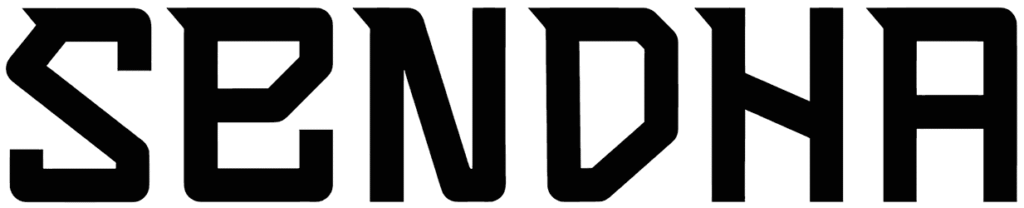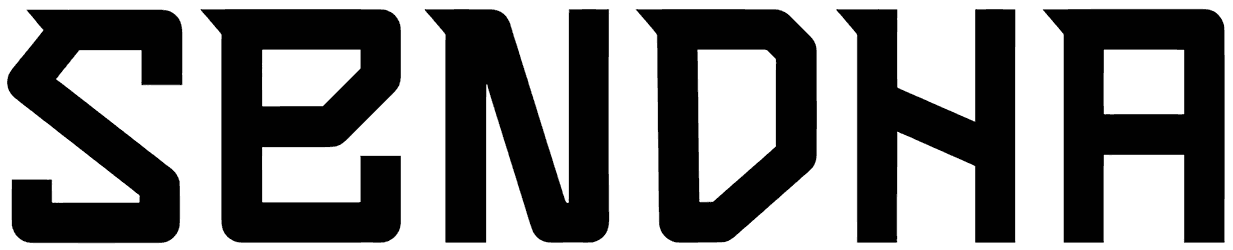
Sendha Font
Impressing the audience is easier than ever with the help of Sendha, a gothic font that comes with a sense of classic, vintage, dynamic, and jauntiness.
Aside from the lack of lowercase letters, it has good readability, thus it can captivate the attention of the audience at first glance and elevate the quality of your posters, logos, business cards, and billboards to a higher level.